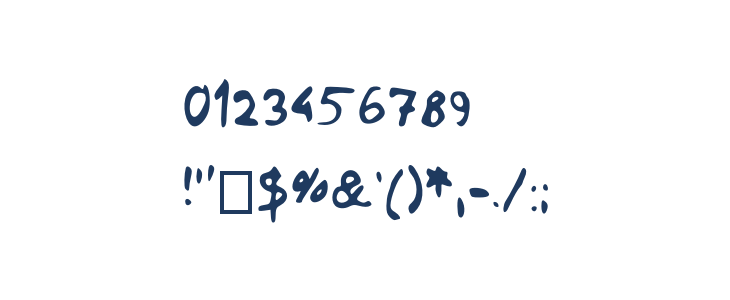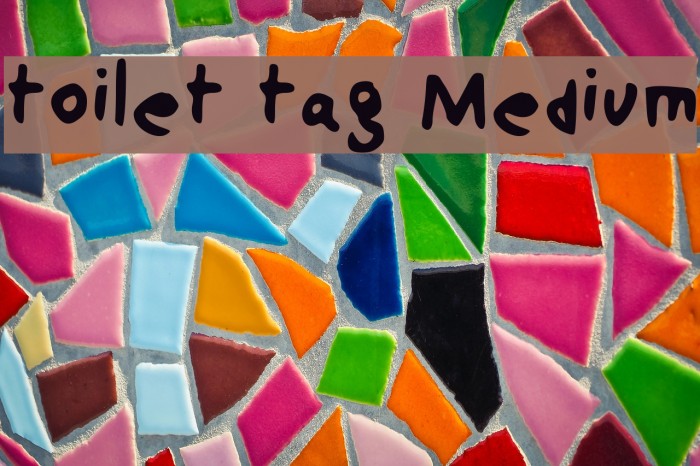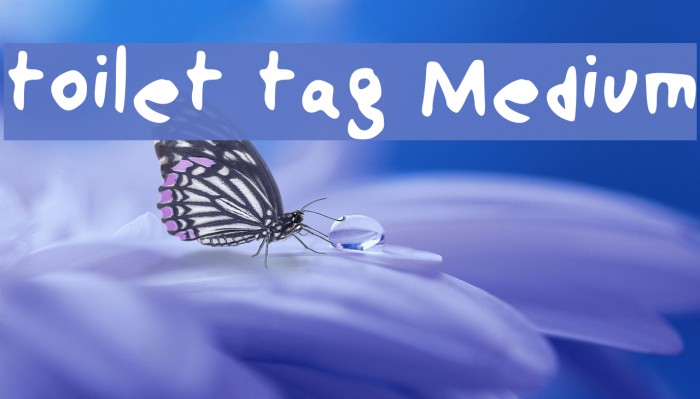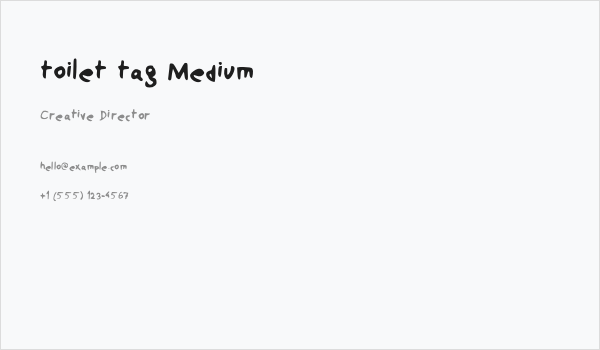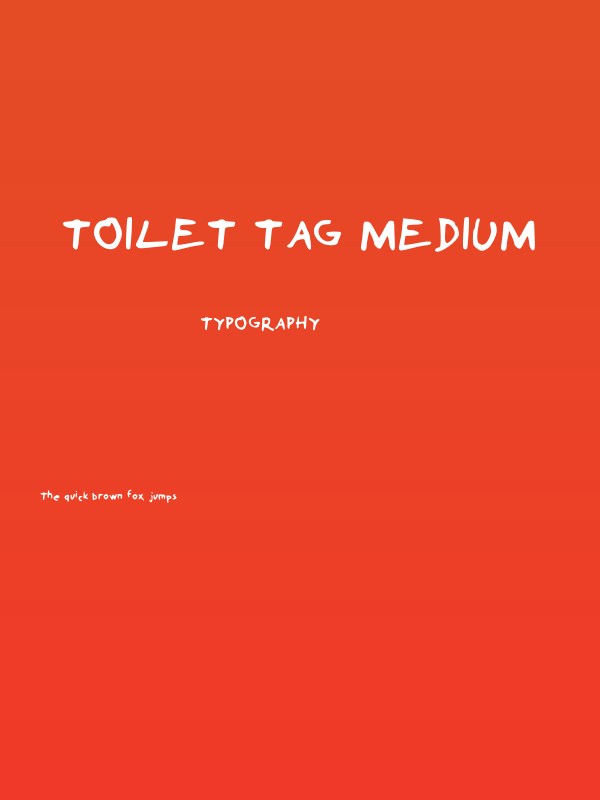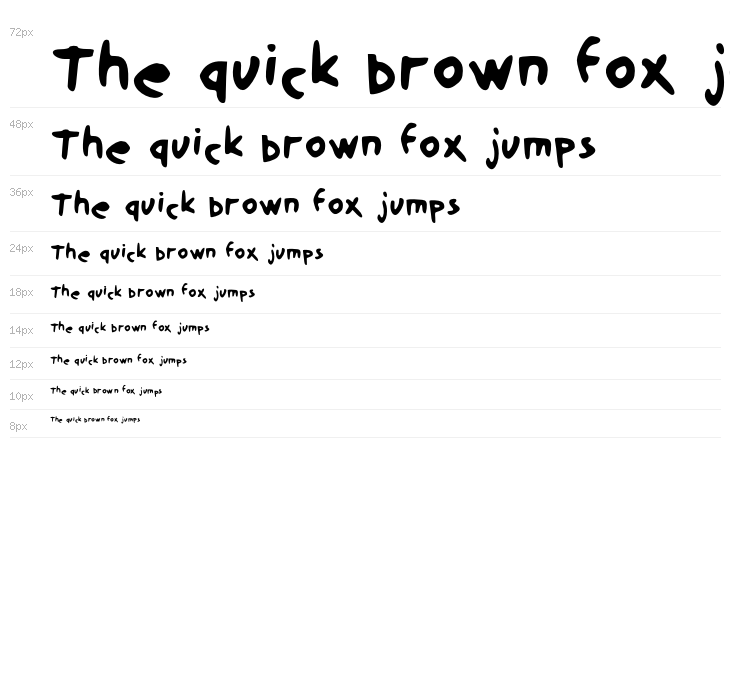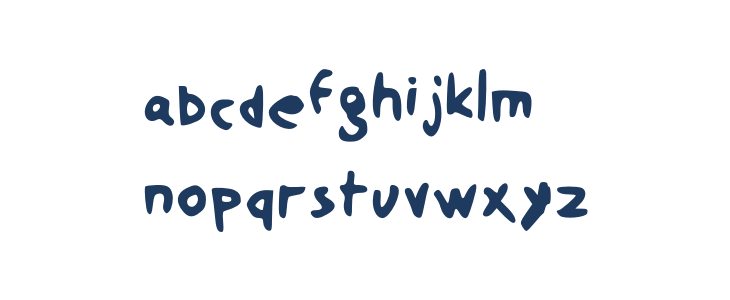
toilet tag Medium Font
toilet tag Medium Description
This font features a playful and informal handwritten style, characterized by its irregular and slightly whimsical letterforms. The strokes are bold and rounded, giving it a friendly and approachable appearance. The uppercase and lowercase letters maintain a consistent style, with a slight tilt that adds to the casual feel. Numbers and special characters follow the same design ethos, ensuring a cohesive look across all elements. The font's unique personality makes it ideal for projects that require a touch of creativity and fun.
| Proposed Projects | Perfect for children's books, greeting cards, playful branding, and creative posters. |